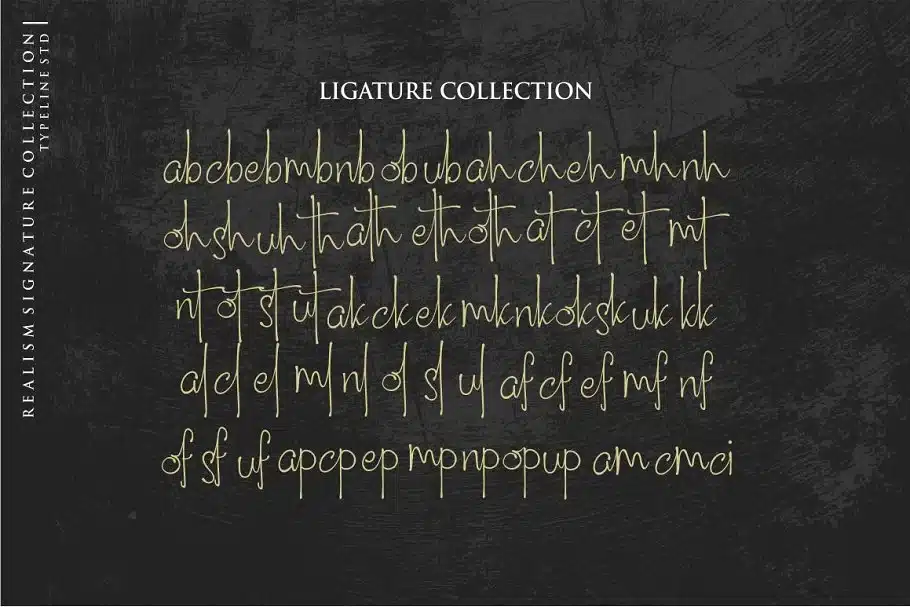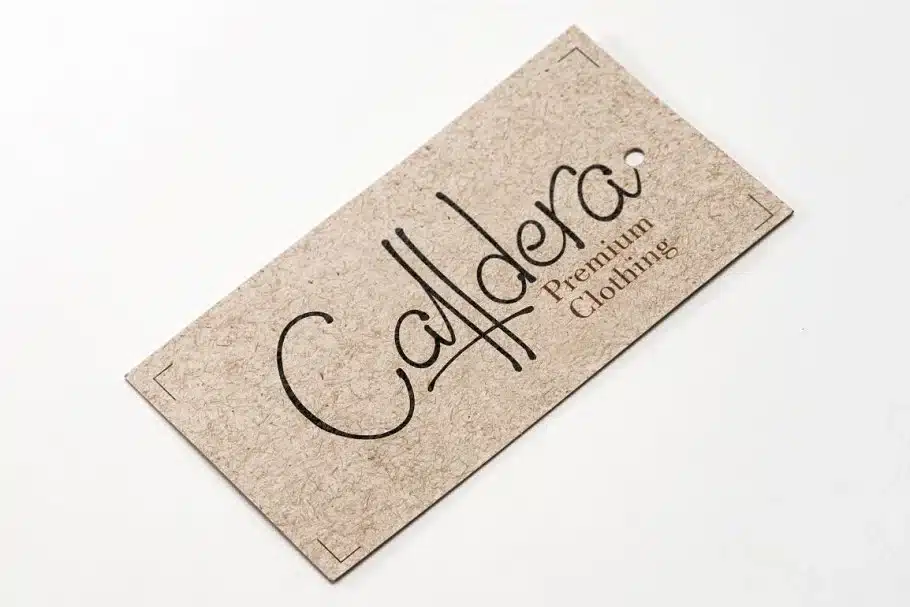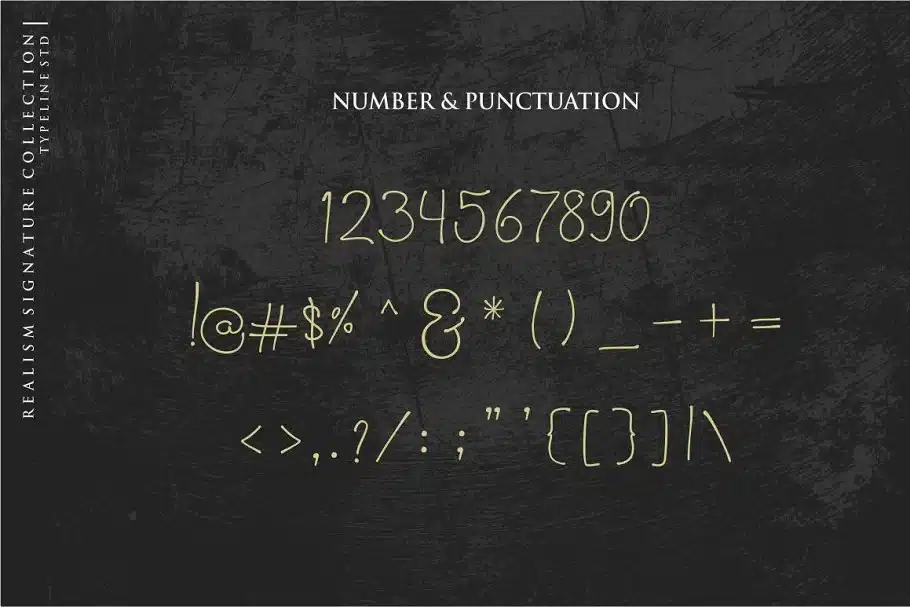
South City Font
Introducing my new font South City !
south city is the name of the city where I live and become the inspiration of the font that I made. South City is a handwritten signature and elegant font with a lot of ligature for your beautiful project. I made . To keep the effects of the real hand letter up to a maximum, there are more than 100 ligature (you can see it between the presentation images). When creating a font, we must consider that each letter must be connected to another letter. For example, the letter "a" must be well connected with "l" and "t" and with other letters. This limits us: we have to start letters from exactly one point and finish at the right second point. So here comes the ligature. The North City font contains the following ligatures: ab cb eb mb nb ub ob sb af cf ef mf nf of tt ett att ott uf at ct et mt nt ut ut ath oth eth th and many more.
South city very easy to use, just write your text name,logo or anything doo you want,!